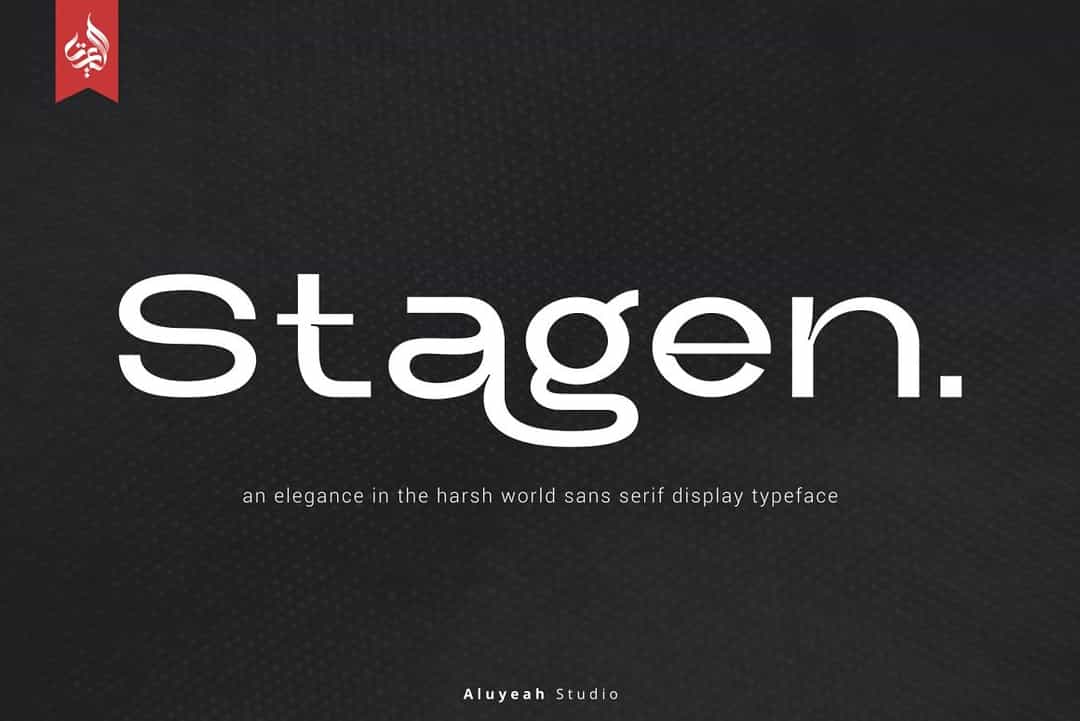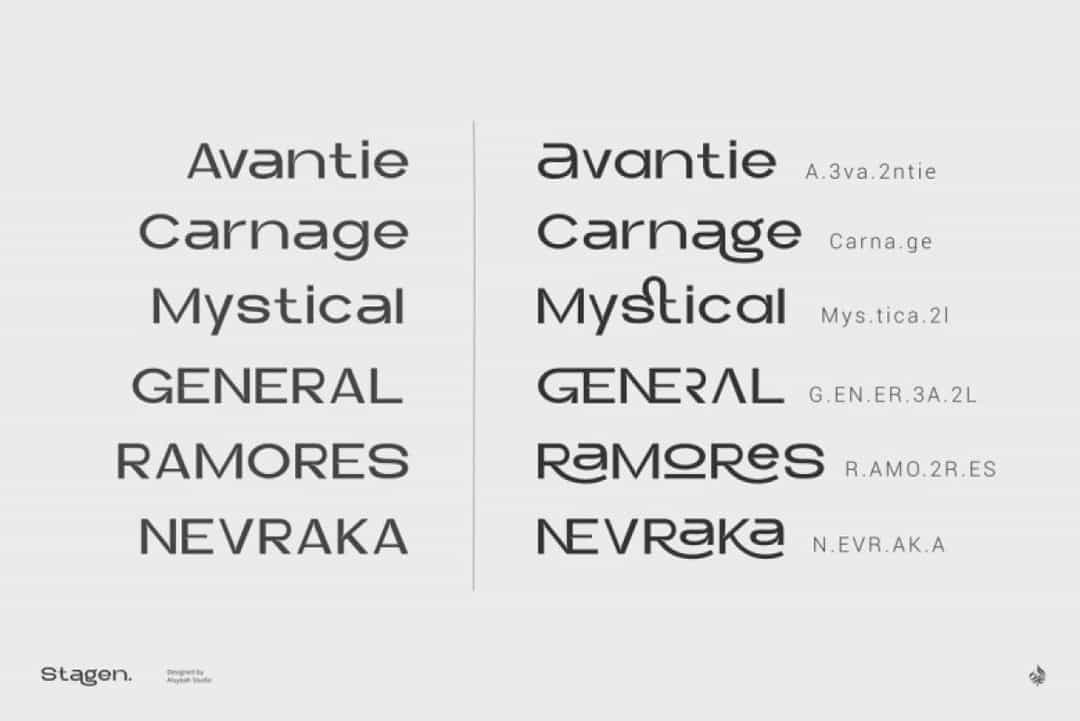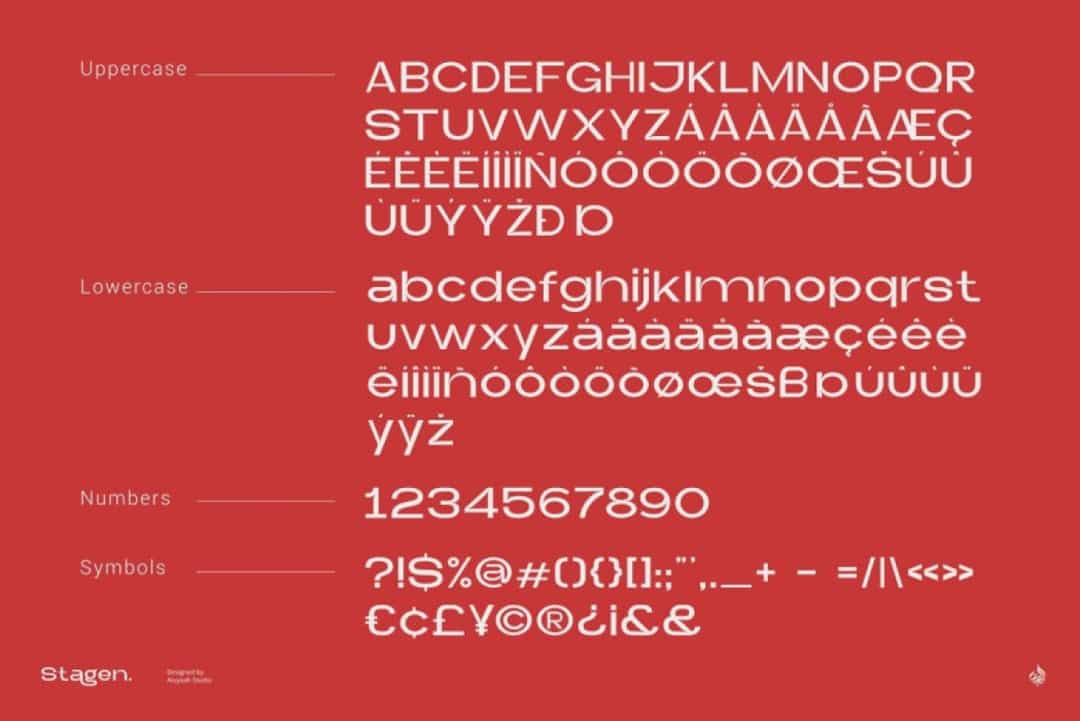
Discover Stagen Font, part of the Sans Serif Display collection—a versatile and unique font perfect for adding a personal touch to your projects. Download it for free and enjoy crafting designs with style, from invitations to social media posts. This font is available exclusively for personal use, giving you the freedom to create without limits. Unlock your creativity with Stagen Font today!
Stagen Sans Serif Font is a piece of fabric with an average length and width between 5-10 meters, usually employed as part of traditional Javanese women’s traditional kebaya attire. Tucked around the stomach area, stagen helps maintain good posture in order to secure jarik fabric securely to kebaya garment. Stagen was popular prior to World War II in Indonesia as fashion statement against harsh environments at that time.